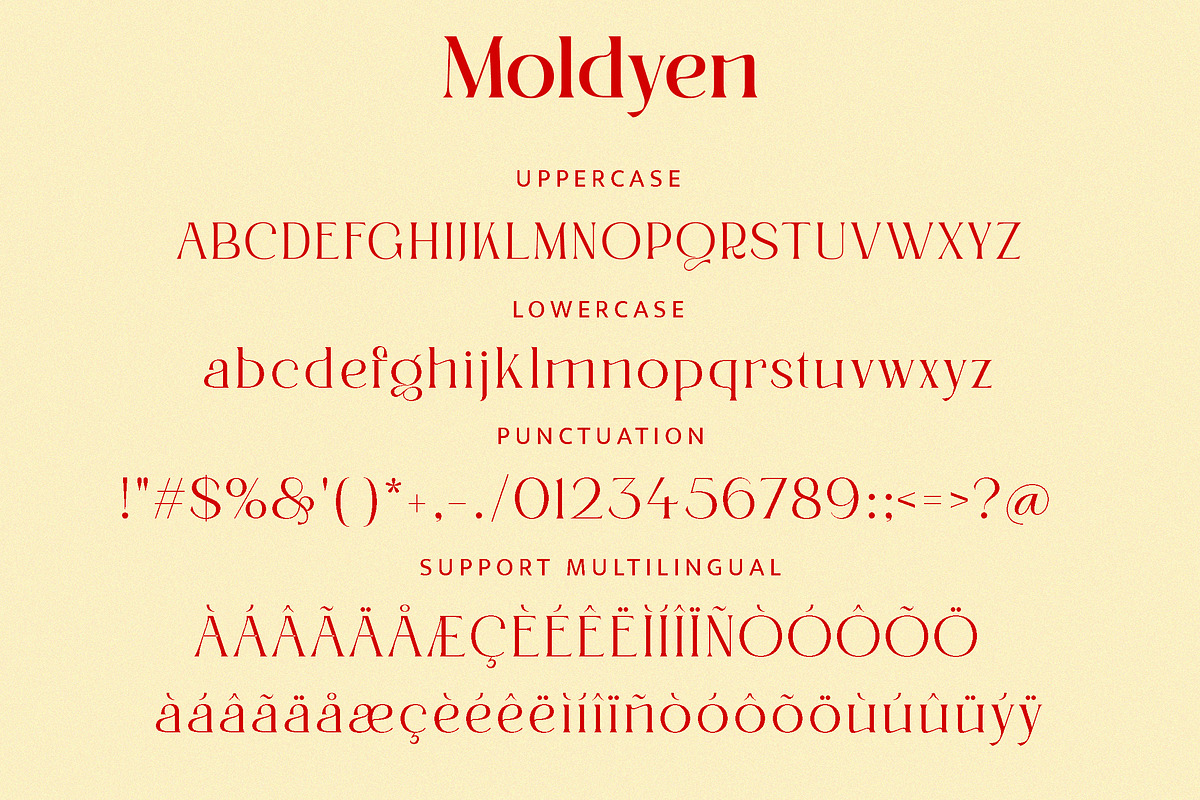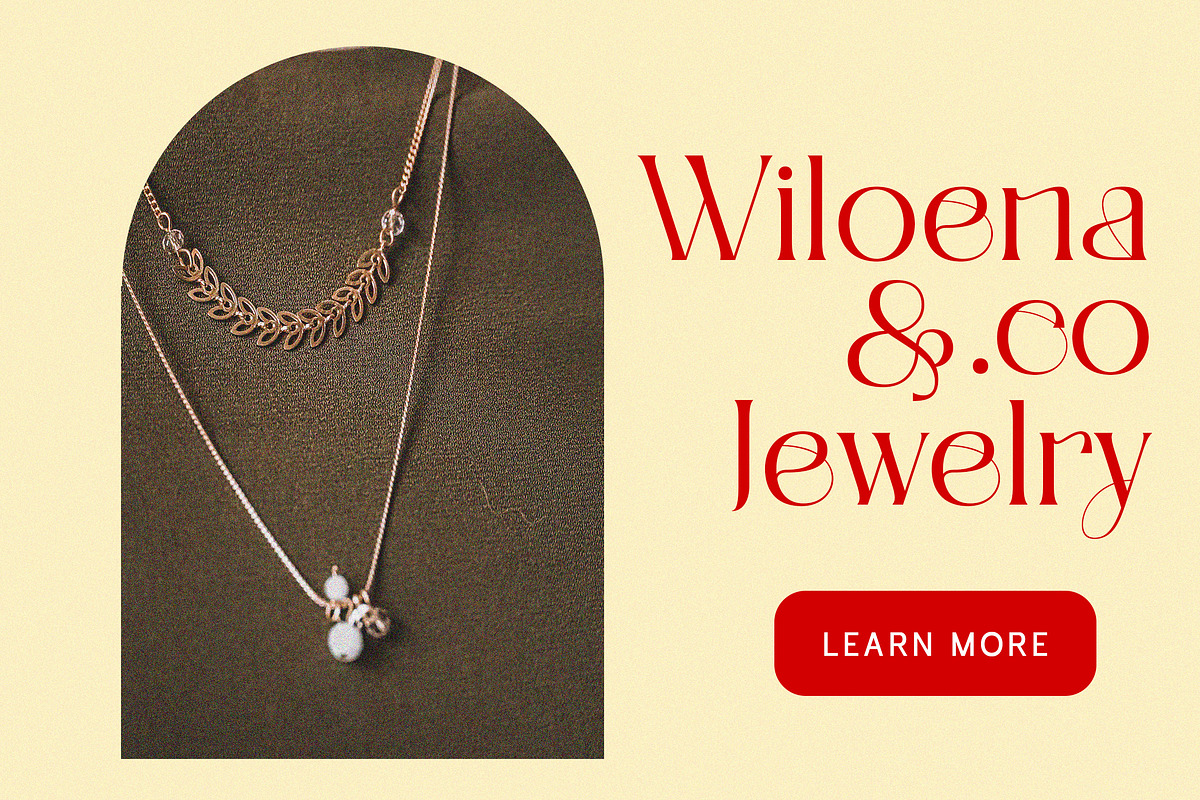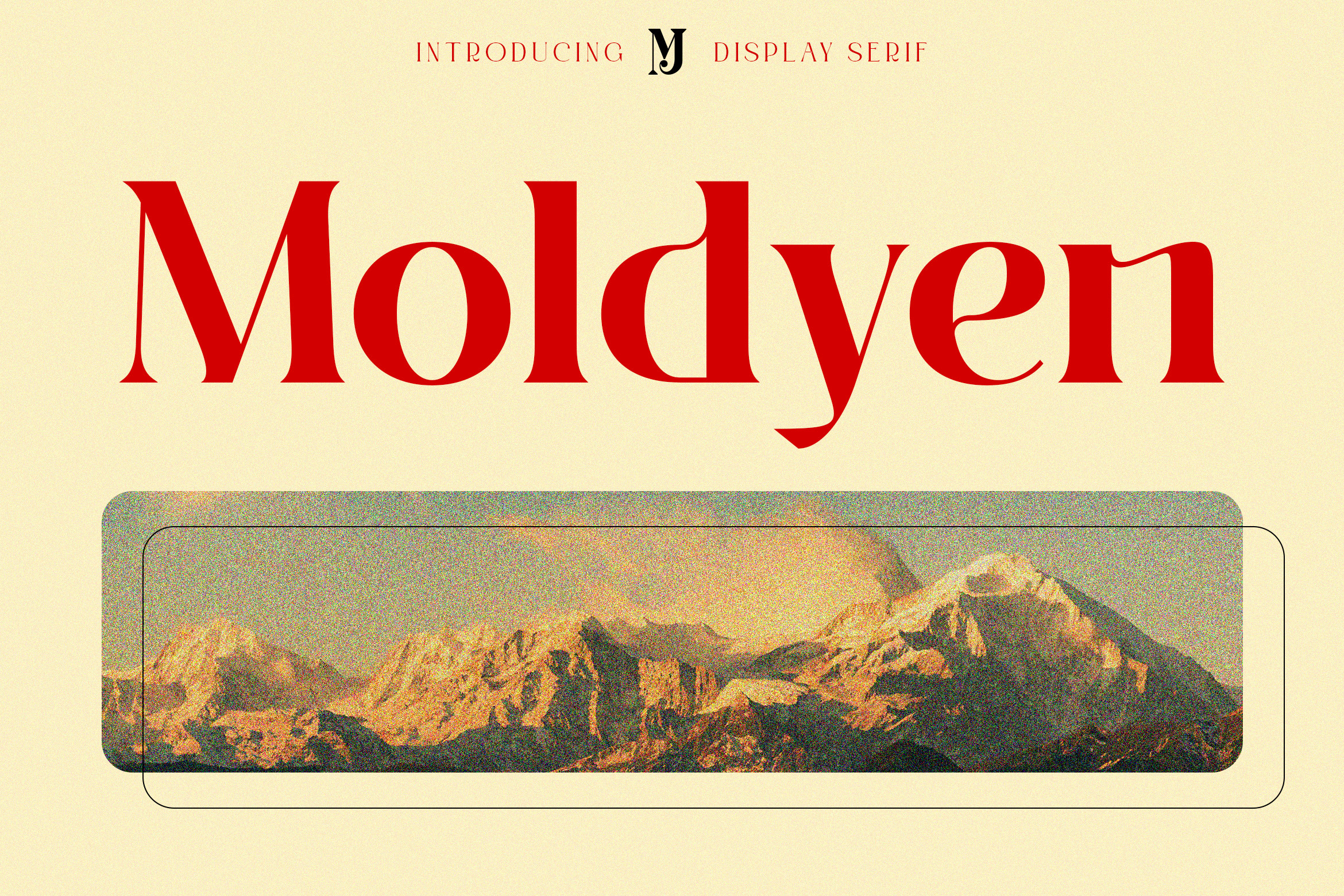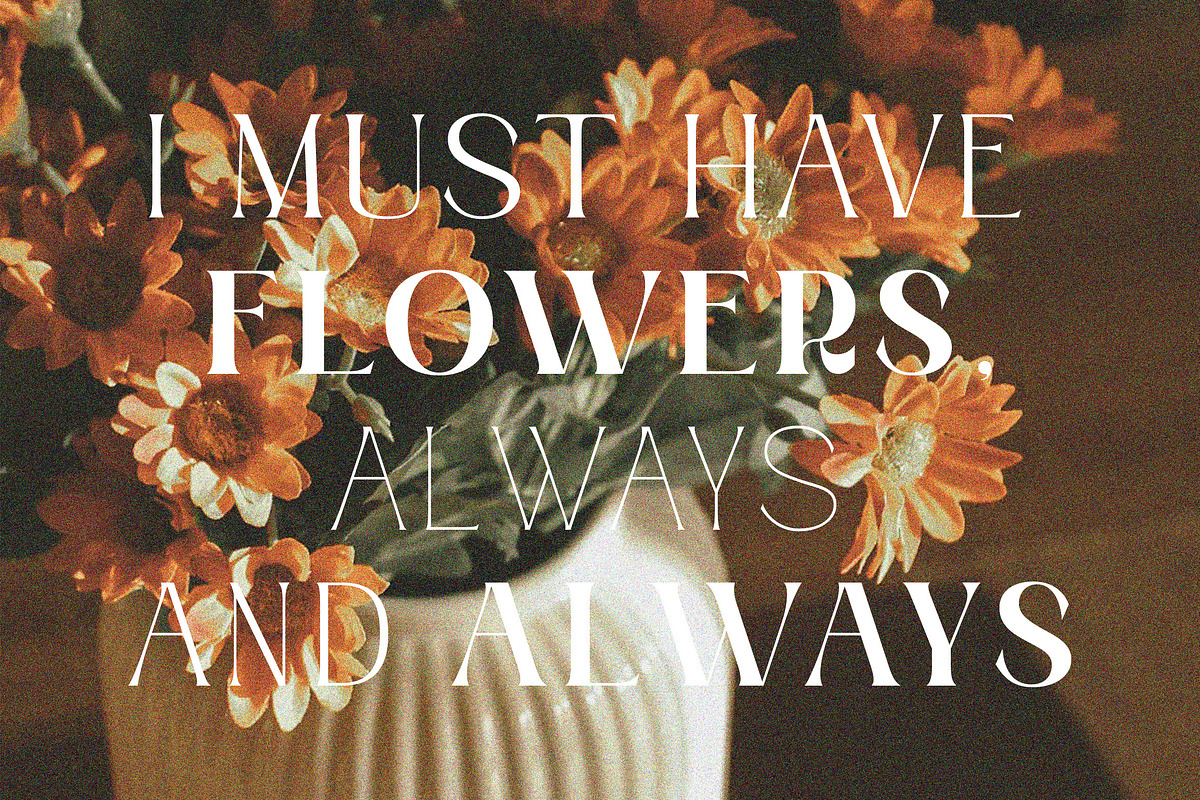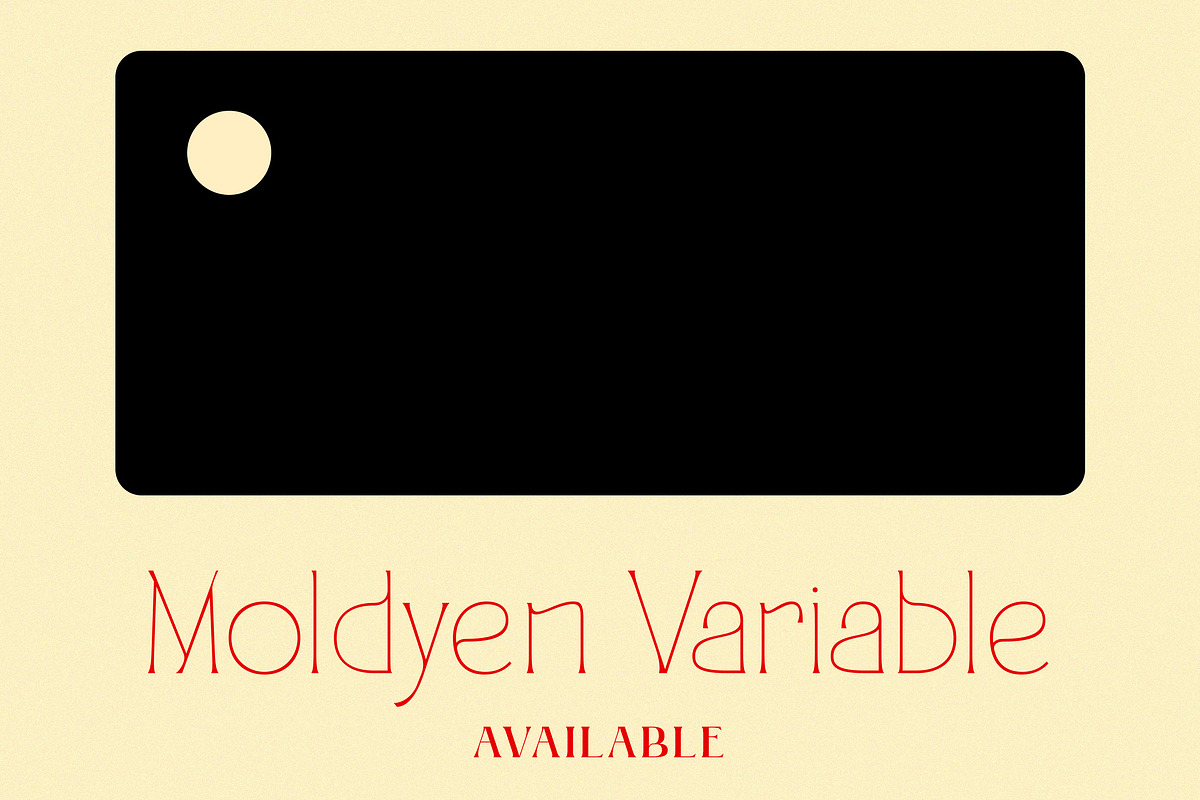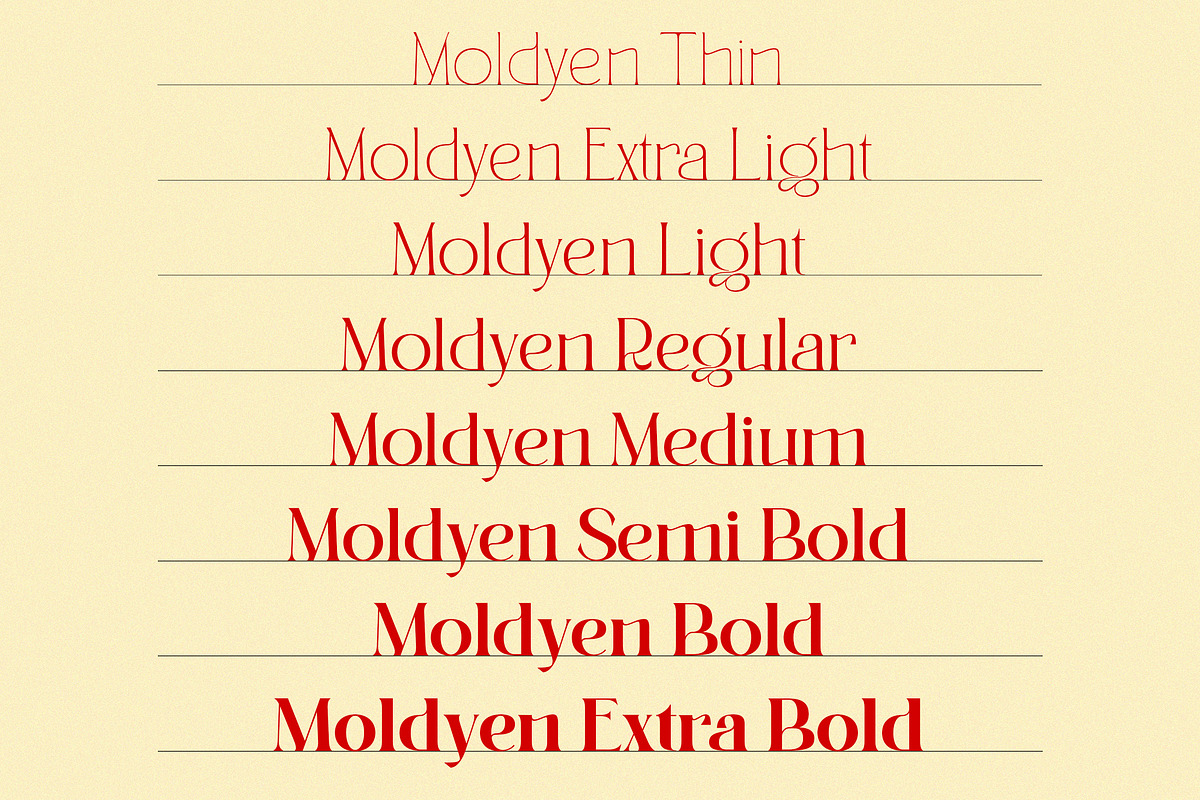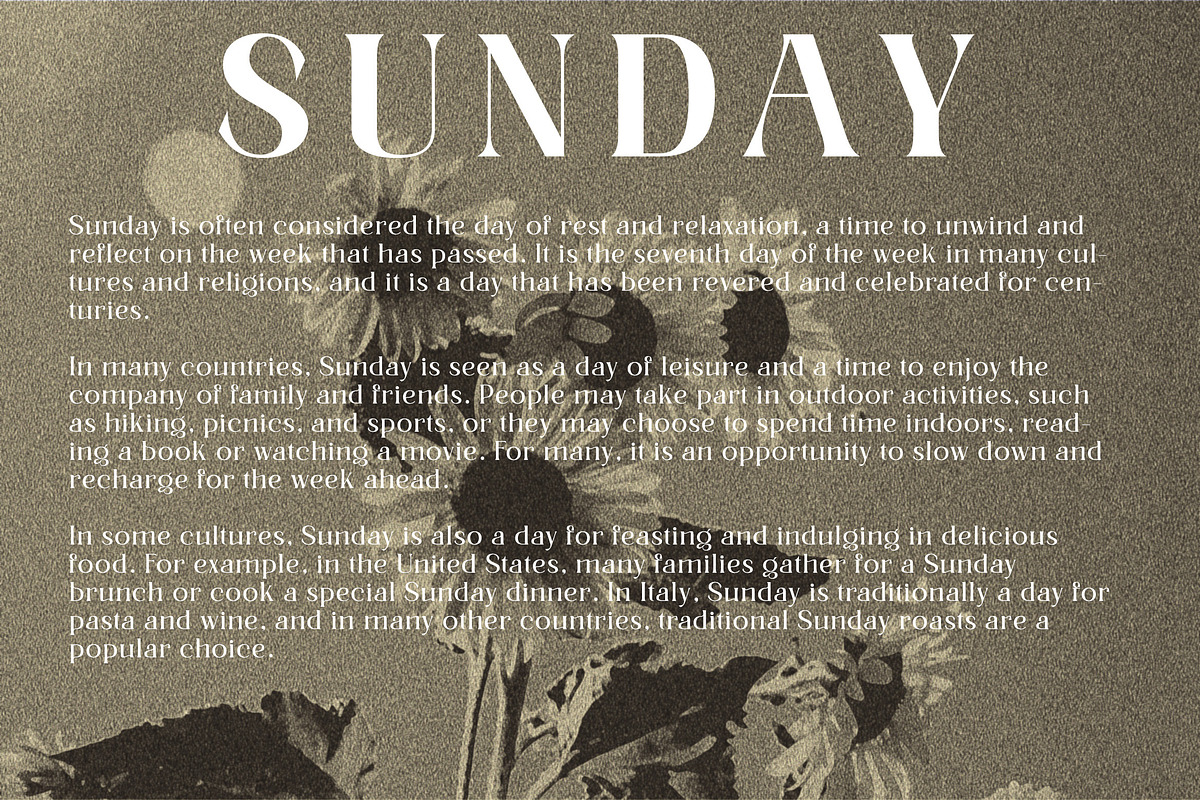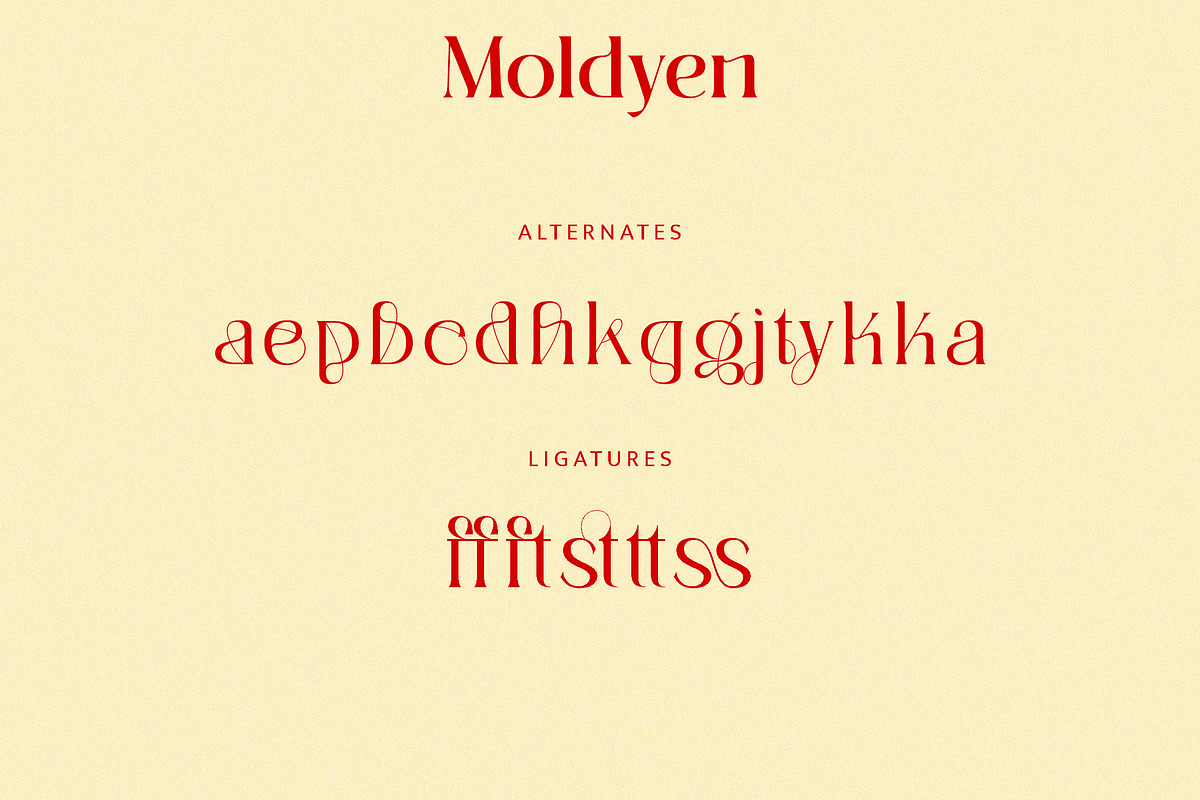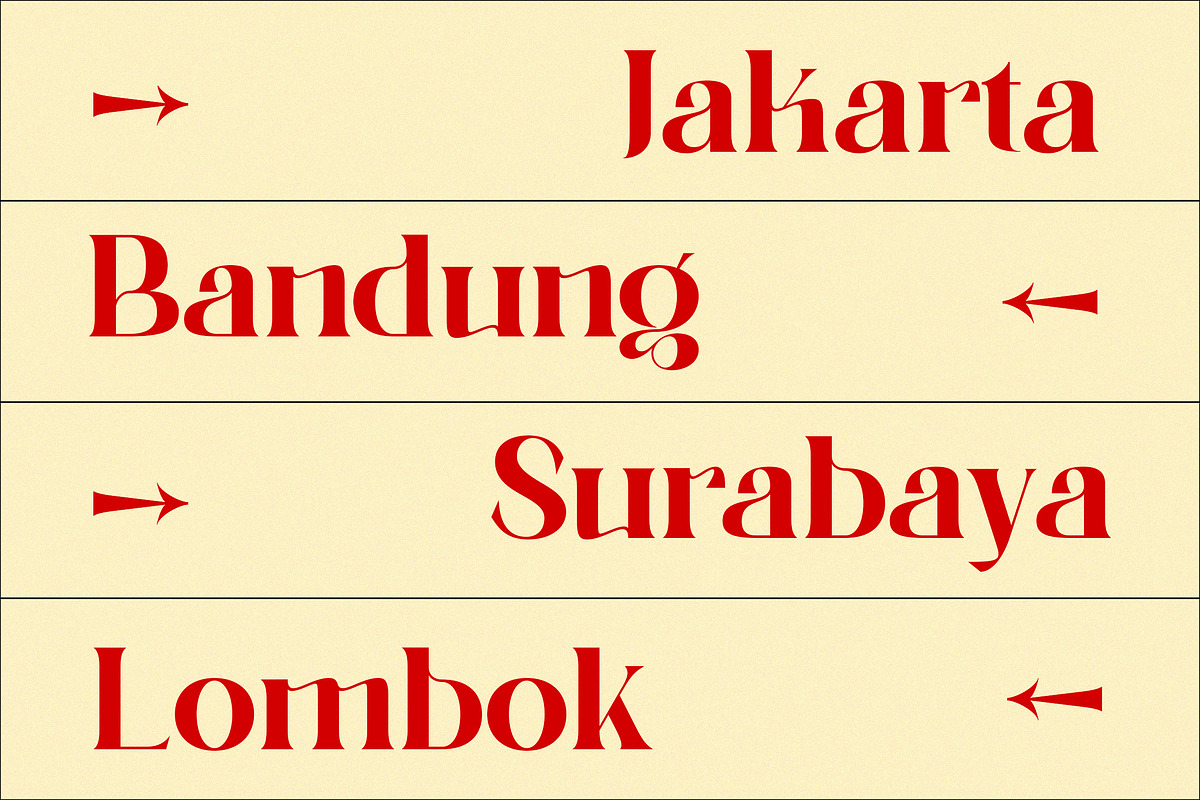
Moldyen Font Family
Moldyen is a Elegant typeface that combines classic elegance with modern functionality. With its clean lines, sophisticated curves, and beautiful letterforms, Moldyen adds a touch of refinement and sophistication to any design project. What sets Moldyen apart is its unique variable design, which allows you to adjust the font’s weight to perfectly match the tone and style of your content.